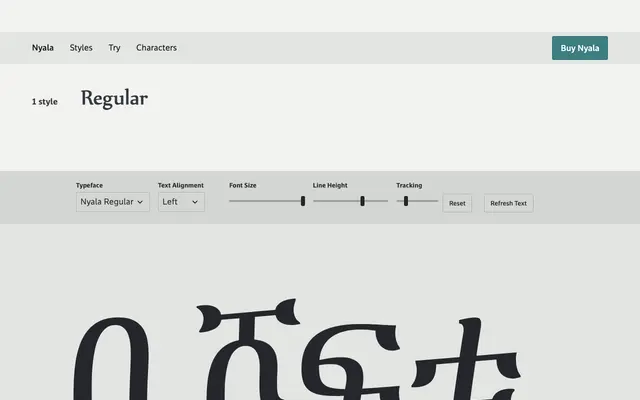
Nyala
Tiro Typeworks · John Hudson, Geraldine Banes (Wade)
A single-weight Ethiopic typeface by John Hudson and Geraldine Banes, covering over 1,090 glyphs for Amharic, Tigrinya and related languages written in the Ge'ez script.
Designed at Tiro Typeworks by John Hudson and Geraldine Banes, Nyala provides thorough coverage of the Ethiopic script with a glyph set exceeding 1,090 characters. It is well known through its inclusion in Microsoft products, where it has served as a key bundled Ethiopic typeface. The design balances legibility at text sizes with the structural demands of the Fidel syllabary, making it a reliable choice for publishing in Ethiopian languages.
Nyala is a typeface designed for the Ethiopic script (Ge'ez/Fidel), used to write Amharic, Tigrinya and related languages. Its Latin companion follows conventional text serif conventions, but the primary design effort is in the extensive Ethiopic glyph set.